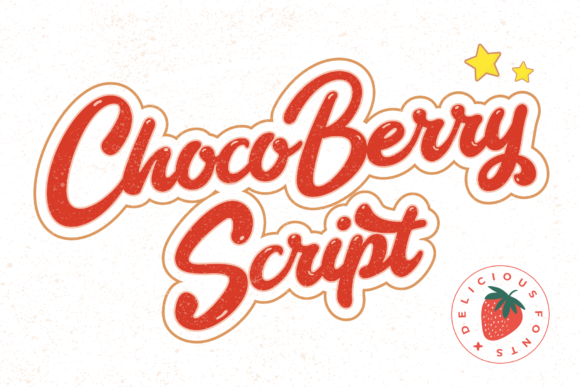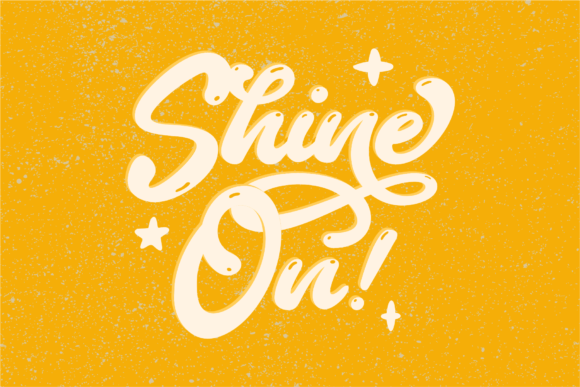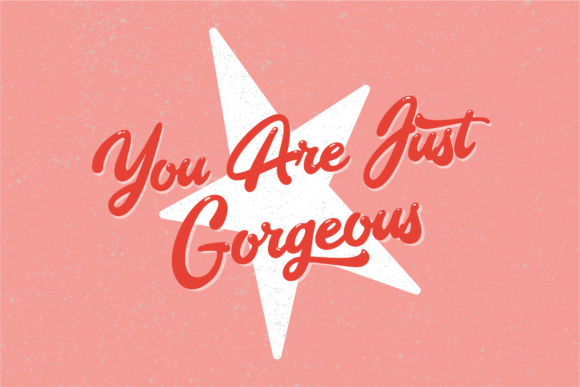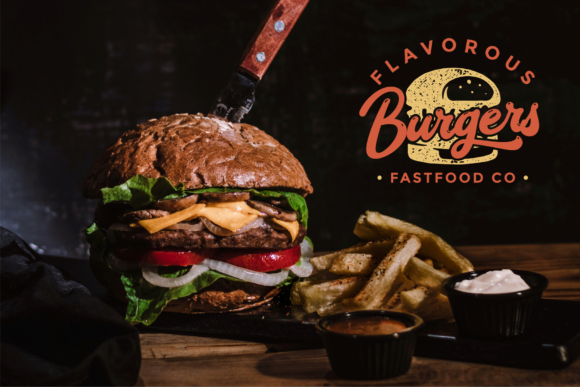
Choco Berry Font: Bold Handwritten Script for Playful Branding & DIY Crafts
About the Choco Berry Font
Introducing the Choco Berry Font, a beautifully crafted typeface designed to elevate your creative projects. Choco Berry is a gorgeous and bold handwritten font, crafted to give your headlines and logotype projects a stylish touch. This font reads as strong, confident, and dynamic and can add tons of nostalgic character to your designs.
Choco Berry Font Usage Examples
Choco Berry Font Example